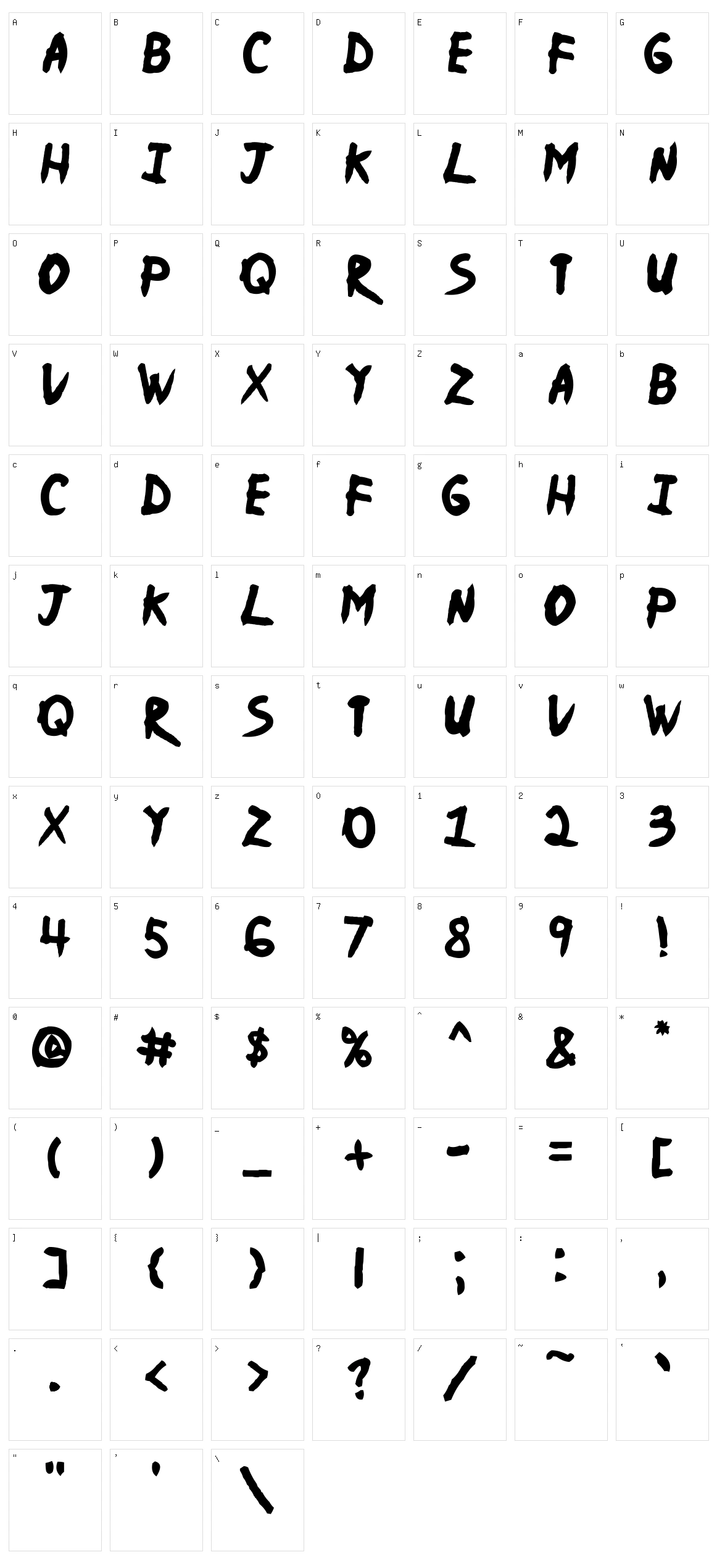
Font is in the distinct style of the anime series Naruto. It is an
unofficial font but it is the first font released for Naruto.
So, there aren't many Naruto fonts out (no other, to my knowledge at
the time of this writing) there. I, realizing that, created my own!
I call the masterpiece, Ninja Naruto! Yes, it's a Naruto font.
Ninja Naruto will not completely make Naruto text like the Naruto
logo itself. If you want to do so, there are 2 ways to do it.
In the Ninja Naruto font, the letters N, A, R, U, T, and O are
very similar to the original, but may differ a little, because I
drew all the characters from scratch in Adobe Illustrator and
assembled them in Font Creator.